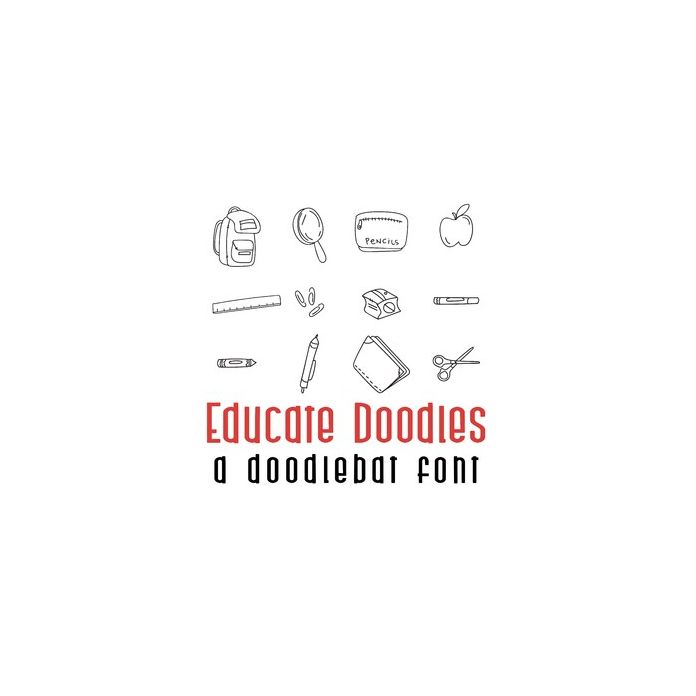
This adorable doodlebat font features 26 doodle style school supplies. Perfect for classrooms, students, crafts, gifts, cardmaking, scrapbook pages, graduation and more!